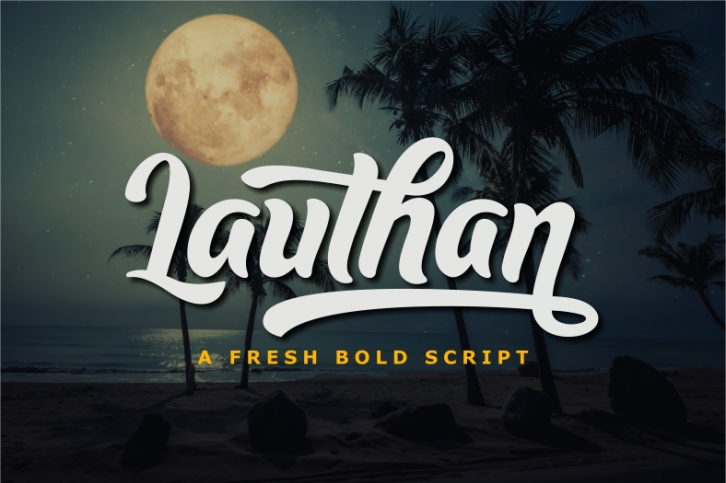
Lauthan is a trendy and unique font with an authentic style. It was designed by NURF Designs and it's a great choice for creative people who need such a font. It was released on March 18, 2020 and the file size is 16.66 MB. Lauthan will add an organic vibe to any design idea!